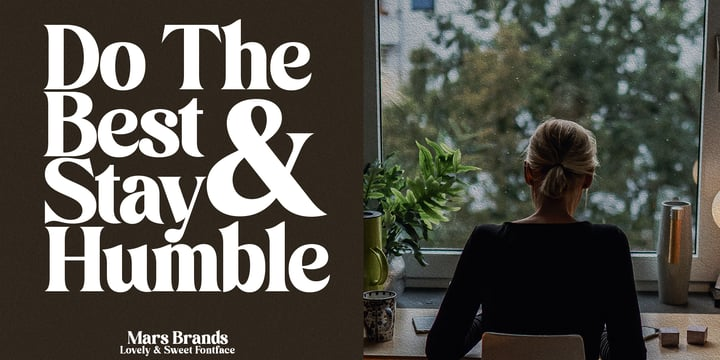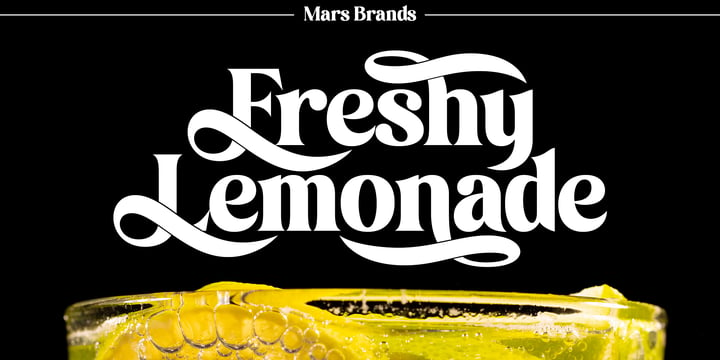
Mars Brands Font
Mars Brands FontMars Brands is a beautiful and smooth serif font created for a romantic and lovely look. It is equipped with many ligatures and alternative characters from uppercase to lowercase. Mars Brands is perfect for greeting cards, wedding invitations, posters, logotypes, product branding, and much more.